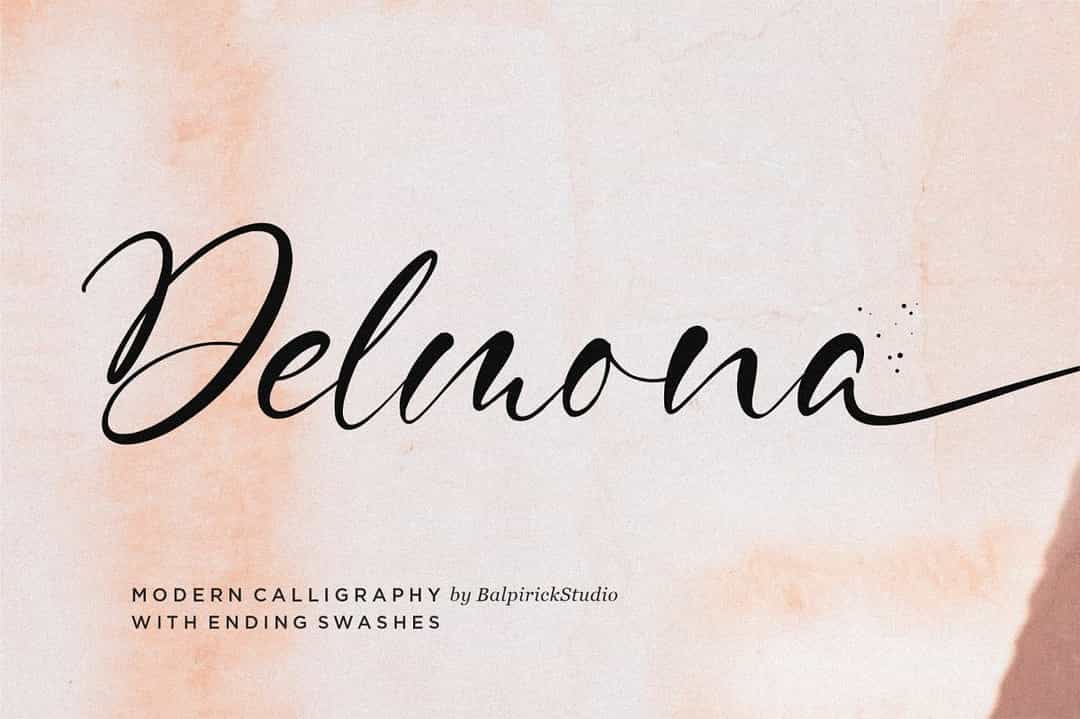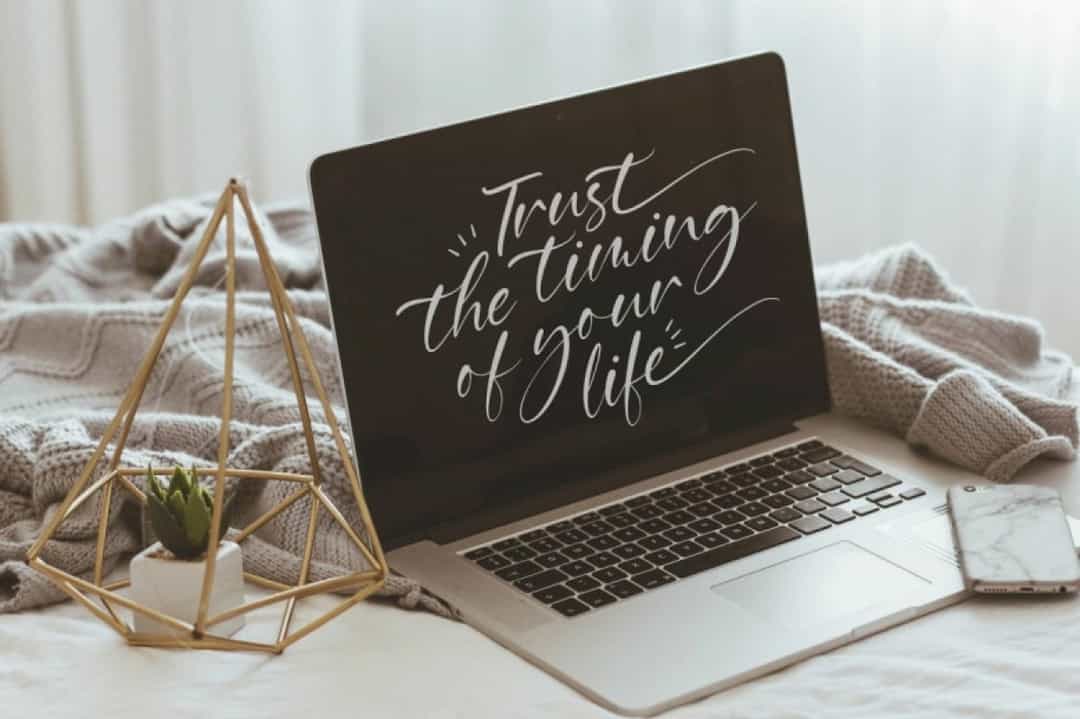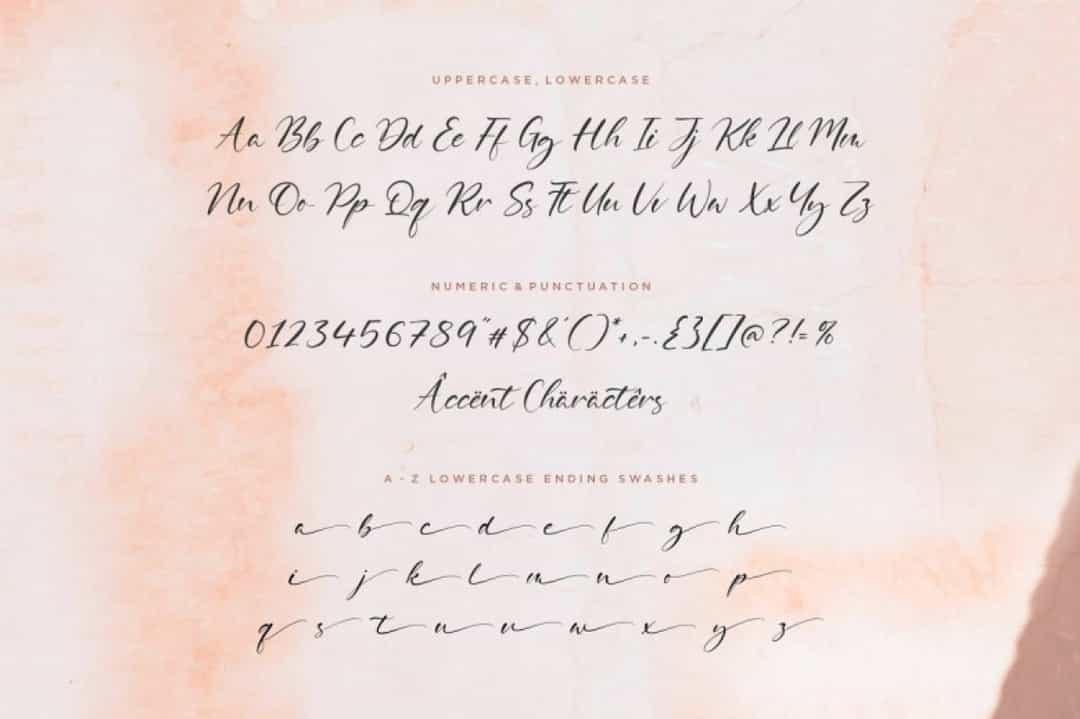
Delmona Font is a modern calligraphy font designed for use with packaging of products, branding projects, magazines weddings and social media – or simply writing words onto backgrounds.